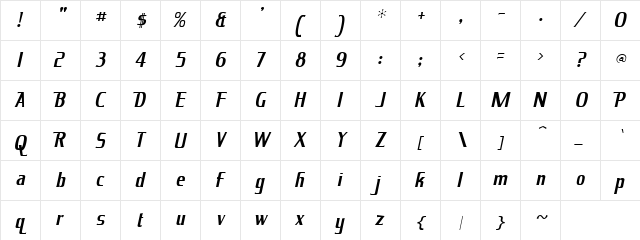
King Richard Regular
Design Context for King Richard Typeface
King Richard offers clean, dependable letterforms without strong stylistic allegiance, making it a practical choice for designers who need flexibility.
Pro Tip: Use King Richard in both headline and body roles to test its range before committing to a single application.